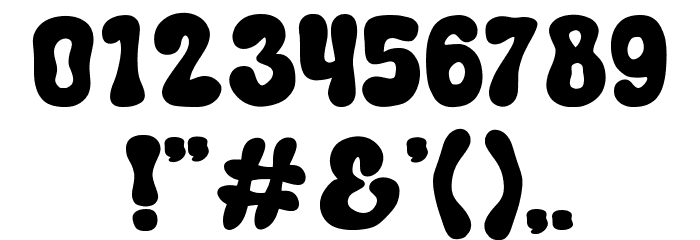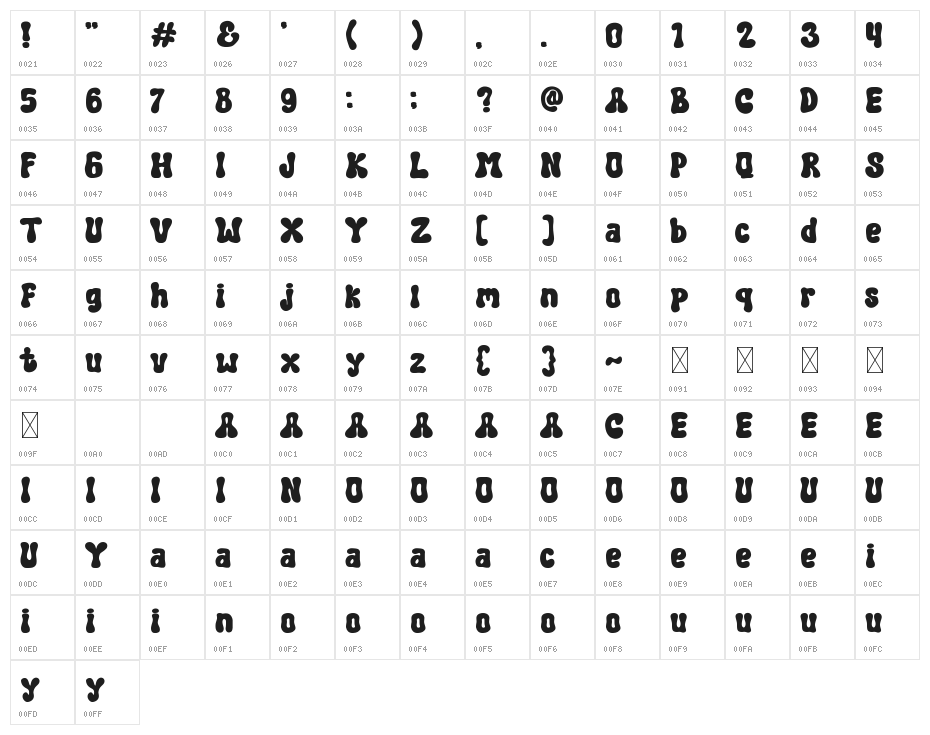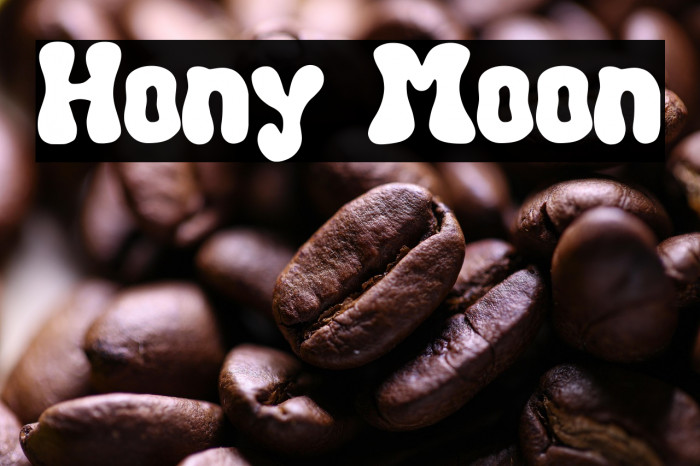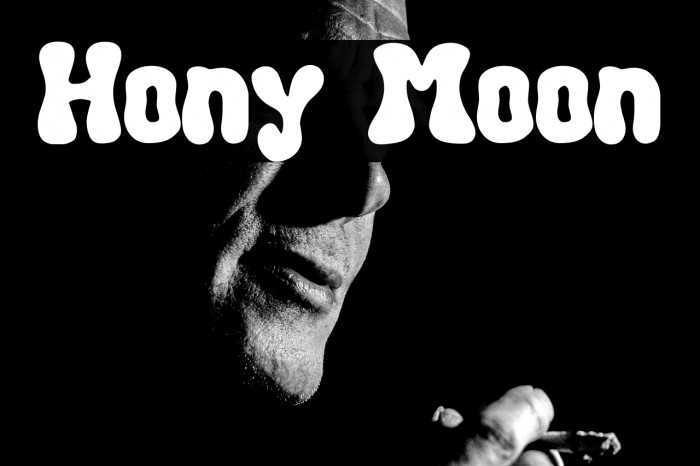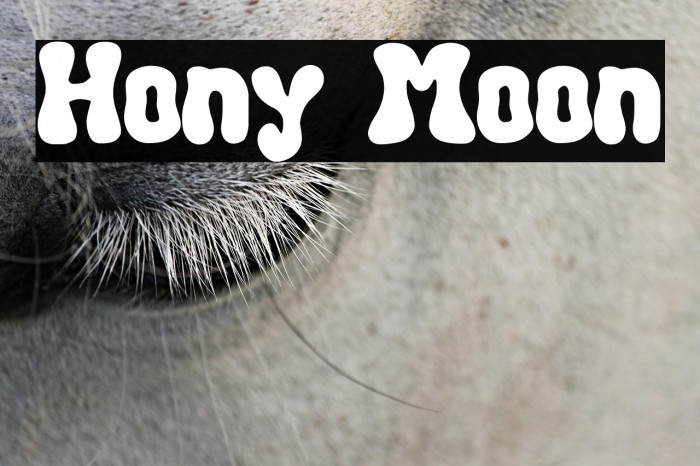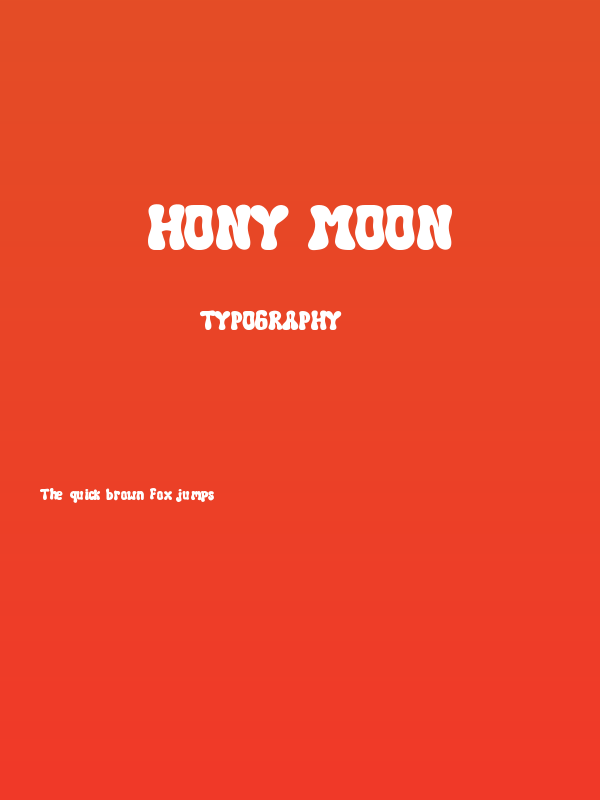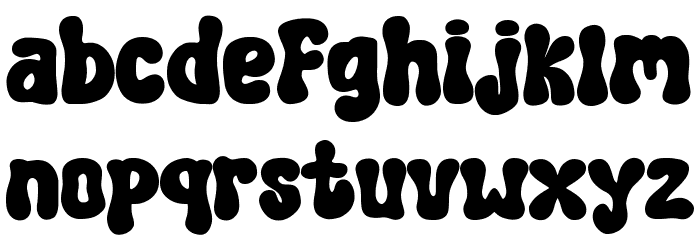
Hony Moon Font
Hony Moon Description
This font features a playful and bold design with thick, rounded strokes that create a bubbly and whimsical appearance. The characters are highly stylized, with exaggerated curves and a consistent weight throughout, giving it a cohesive and eye-catching look. The uppercase and lowercase letters maintain a uniform style, while the numerals and special characters complement the overall aesthetic. This font exudes a sense of fun and creativity, making it ideal for projects that require a lively and engaging typeface.
| Proposed Projects | Ideal for children's books, party invitations, playful branding, and creative posters. |